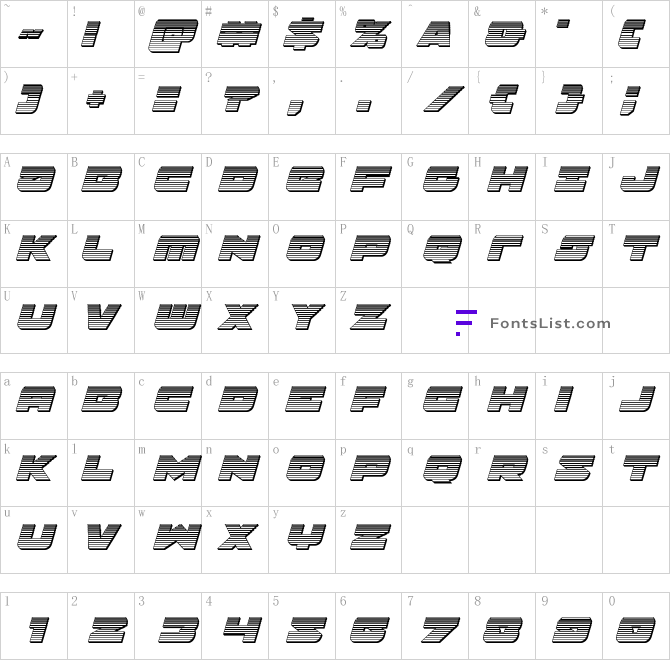
- Font Name:Banjin Scanlines Chrome Italic
Banjin-Chrome-Italic.ttf is a very beautiful artistic font, Banjin-Chrome-Italic.ttf is widely used in the design and printing of various books and pictures,Banjin-Chrome-Italic.ttf has a strong visual impact,Banjin-Chrome-Italic.ttf is a commonly used font in newspapers, magazines and books, and is used in posters, e-commerce Poster design, store design, logo design, font design and other fields.Banjin-Chrome-Italic.